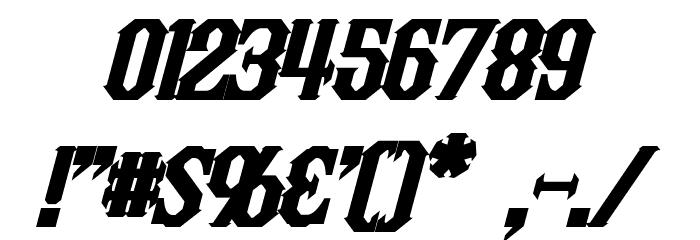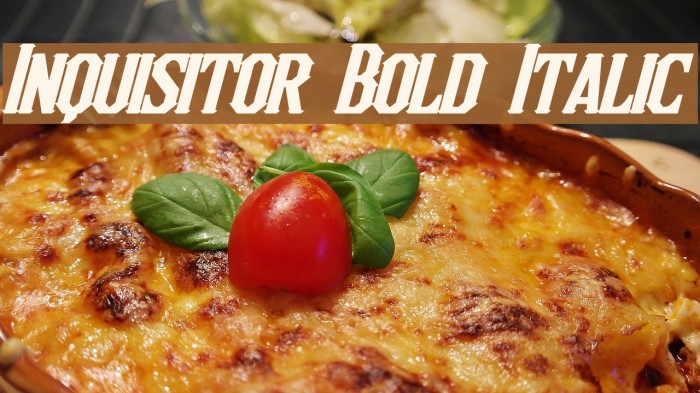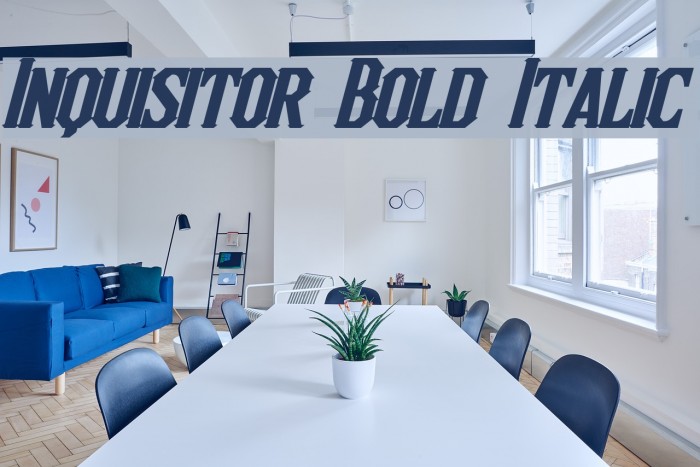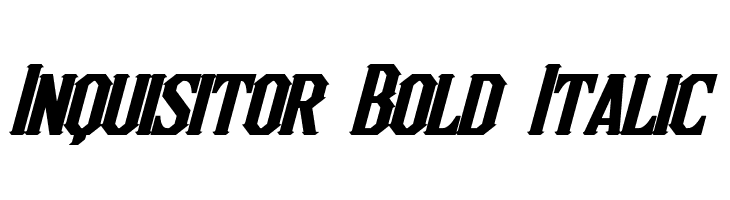
Inquisitor Bold Italic Font
This font features a bold and italicized style with a strong, dynamic presence. The characters are sharply angled, giving a sense of movement and energy. The strokes are thick and consistent, providing a robust and impactful appearance. The uppercase and lowercase letters maintain a uniform width, enhancing readability while retaining a distinctive flair. The numbers and special characters are designed to match the boldness of the letters, ensuring a cohesive look across all text elements. This font is ideal for making a statement, with its aggressive and modern aesthetic.
A bold, italicized font with sharp angles and a dynamic, modern style.
- Proposed Projects: Perfect for sports branding, action movie posters, and dynamic advertising campaigns.